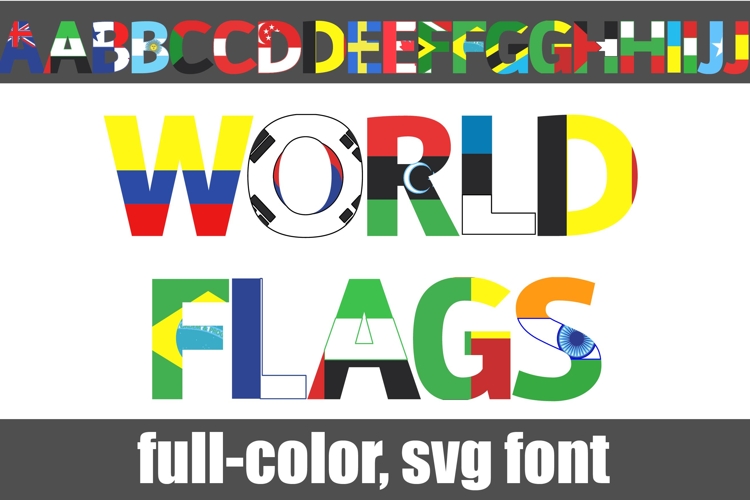
World Flags Color Font
This full-color, sans serif font features flags from around the world. There is an alt case of additional colors of each letter that you can access through your system's character map.